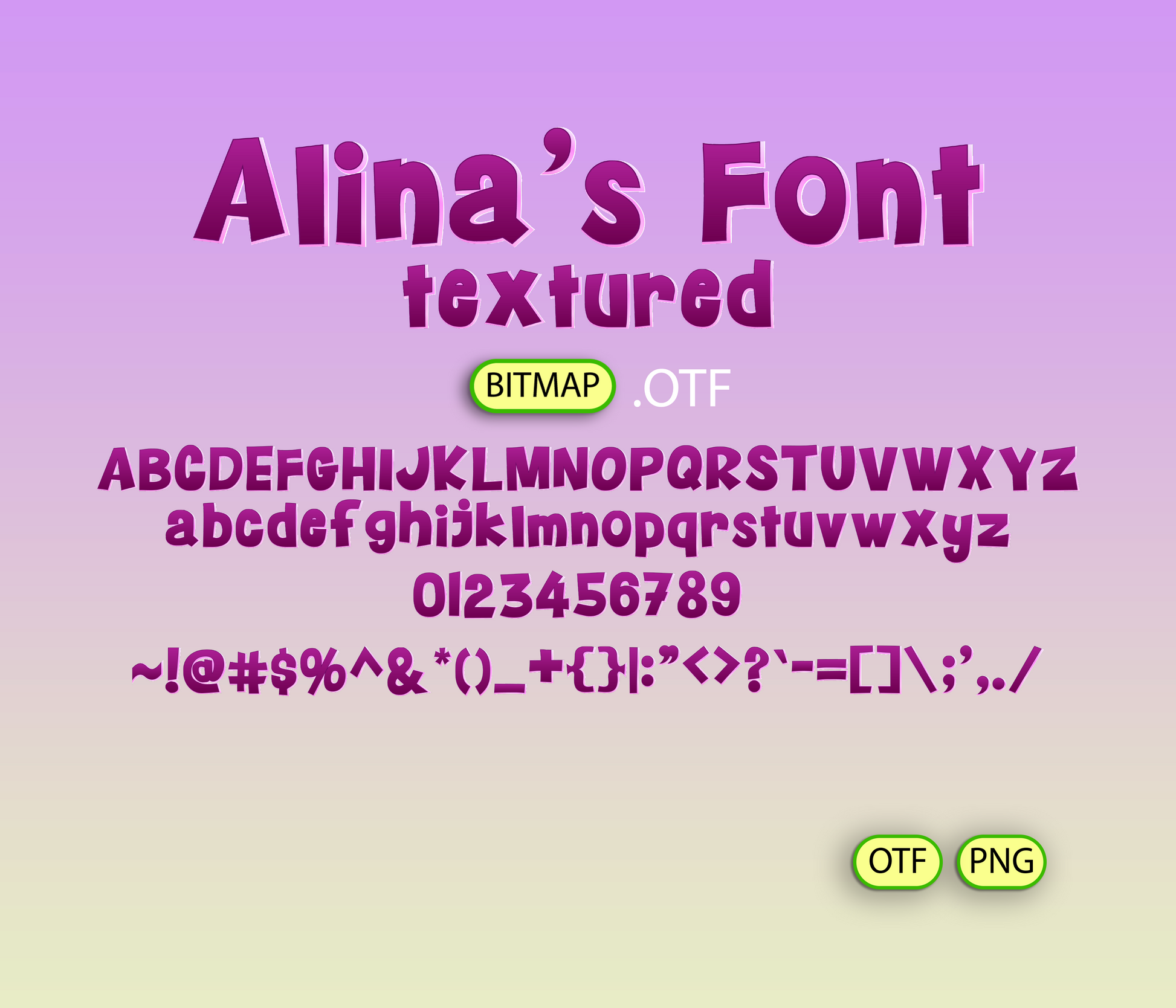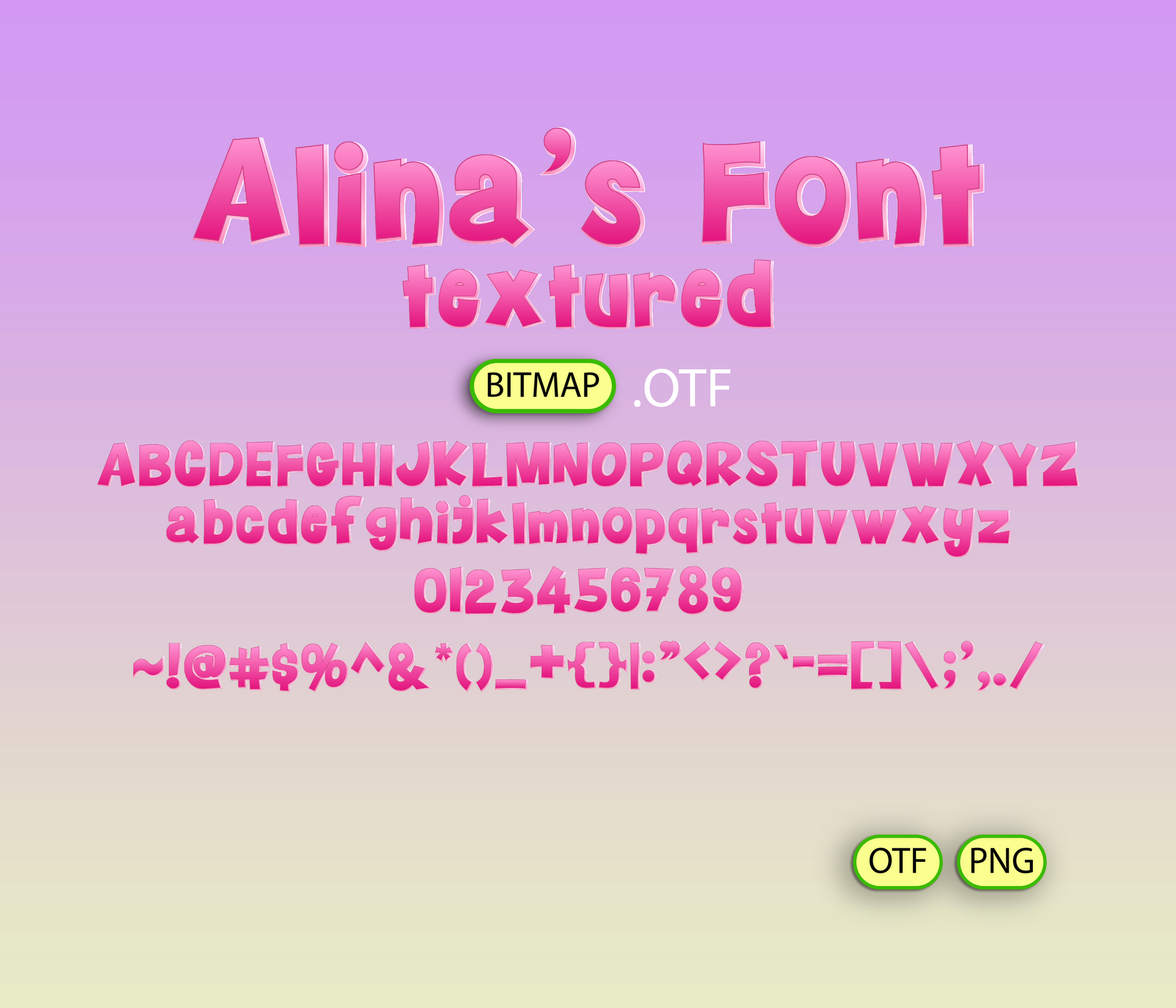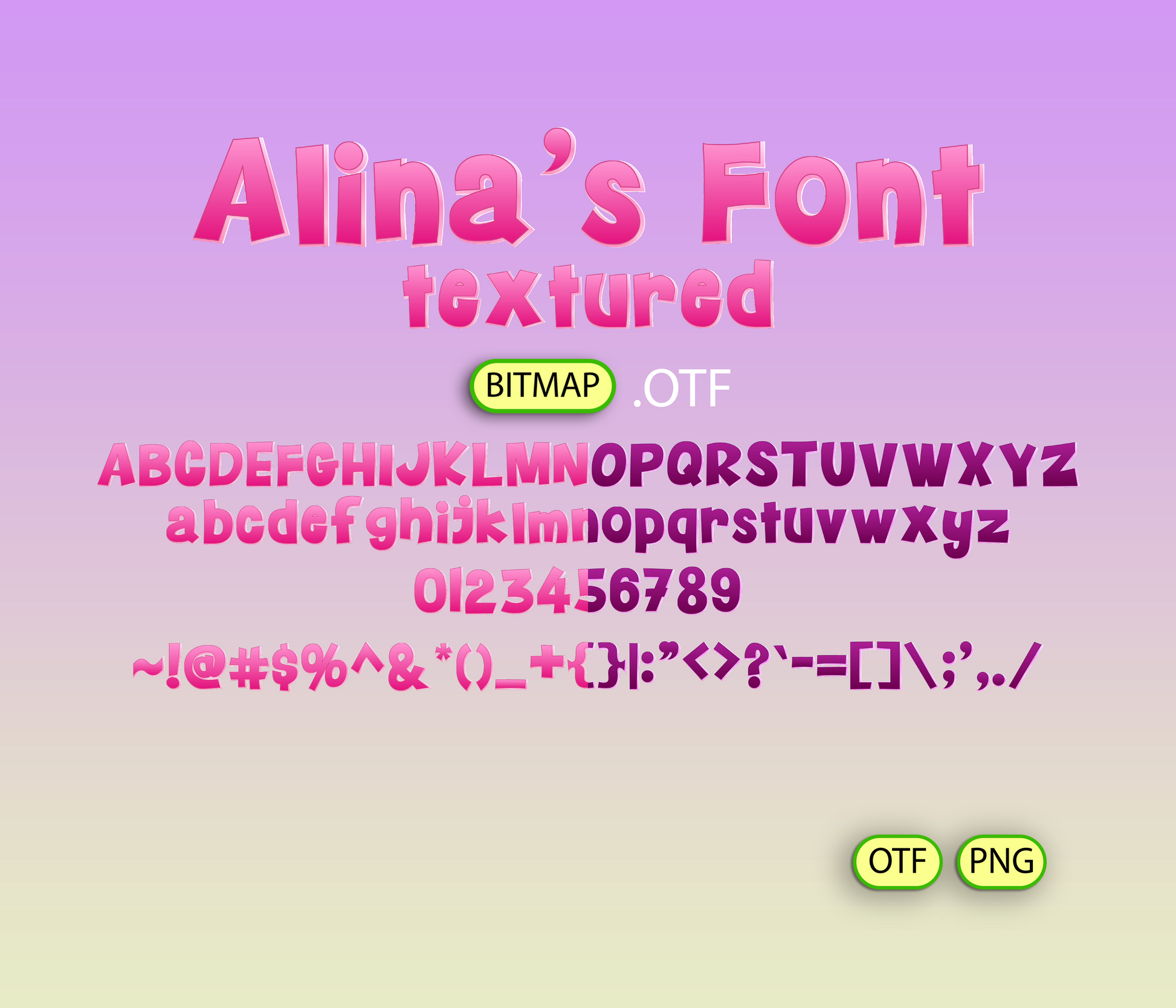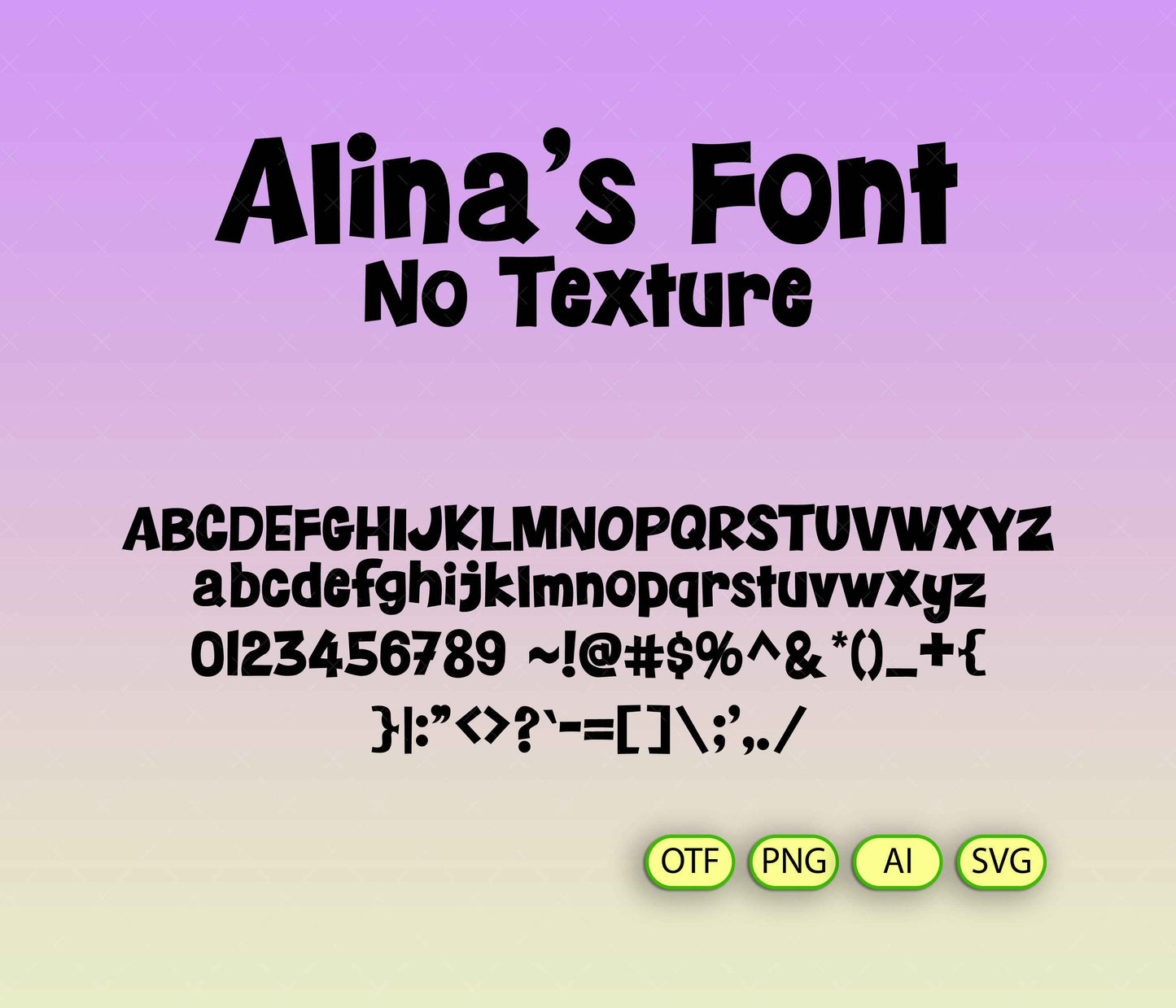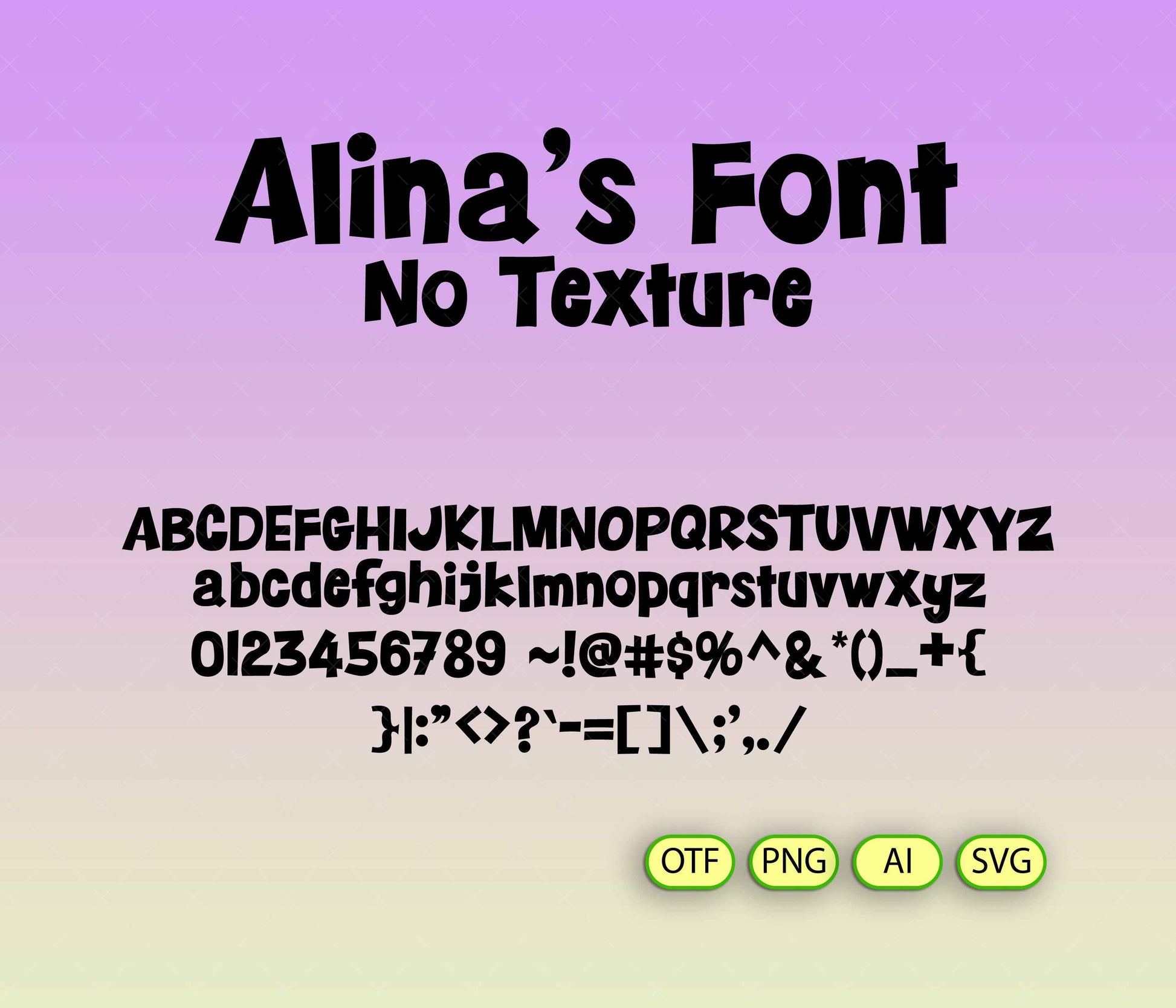
Puppy Detective Pink Font Textured Bundle
Puppy Detective Pink Font Textured
Dive into the delightful and educational world of children's entertainment with our unique Puppy Detective Pink Textured Fonts, a collection that captures the playful essence of a beloved kids' show. This font bundle is inspired by the colorful and engaging universe of a curious puppy and her friends, where each clue leads to fun learning experiences. The pink textured variant of the font mirrors the warmth and joyous spirit of the show, making it perfect for projects that aim to evoke a friendly and inviting atmosphere.
What Font is Puppy Detective Font?
Imagine a typeface that combines whimsicality and simplicity with a soft, pink texture. This font is designed to reflect the playful and educational nature of children's programming, with a nod to colorful visual styles. The character set includes alphabets, numbers, and special symbols, all adorned with a charming pink texture, making it a versatile choice for various design projects related to children's entertainment, education, or themed events.
What Can You Do With Puppy Detective Font?
The Puppy Detective Pink Textured Fonts are versatile and ideal for a wide range of applications:
1. Children's Party Invitations: Create adorable invitations for puppy-themed birthday parties or events.
2. Educational Materials: Perfect for designing engaging teaching aids and classroom decorations.
3. Children's Book Design: Enhance the visual appeal of children's books, storyboards, or educational pamphlets.
4. Merchandise and Apparel: Design charming t-shirts, hats, and accessories for young fans.
5. Digital Content for Kids: Use the font to add a playful touch to websites, apps, and social media content aimed at children.
6. Greeting Cards and Stationery: Craft personalized stationery or greeting cards with a child-friendly and joyful theme.
7. Event Signage and Decor: Develop eye-catching signs, banners, and decorations for children's events or play areas.
8. Marketing Materials: Incorporate the font in promotional content for children's products, services, or events.
9. Craft Projects and DIY: Ideal for scrapbooking, crafting, and creative projects inspired by children's shows.
10. Nursery and Room Decor: Create wall art, decals, or room decorations with a puppy detective theme.
• Textured and FREE Non-Textured Variants: Available in a pink textured style for a playful look and a clean, non-textured version for versatility.
• Comprehensive Character Set: Offers a wide range of characters for complete design versatility.
The Puppy Detective Pink Textured Fonts package is more than just a collection of typefaces; it's a celebration of the playful and educational spirit of children's entertainment.